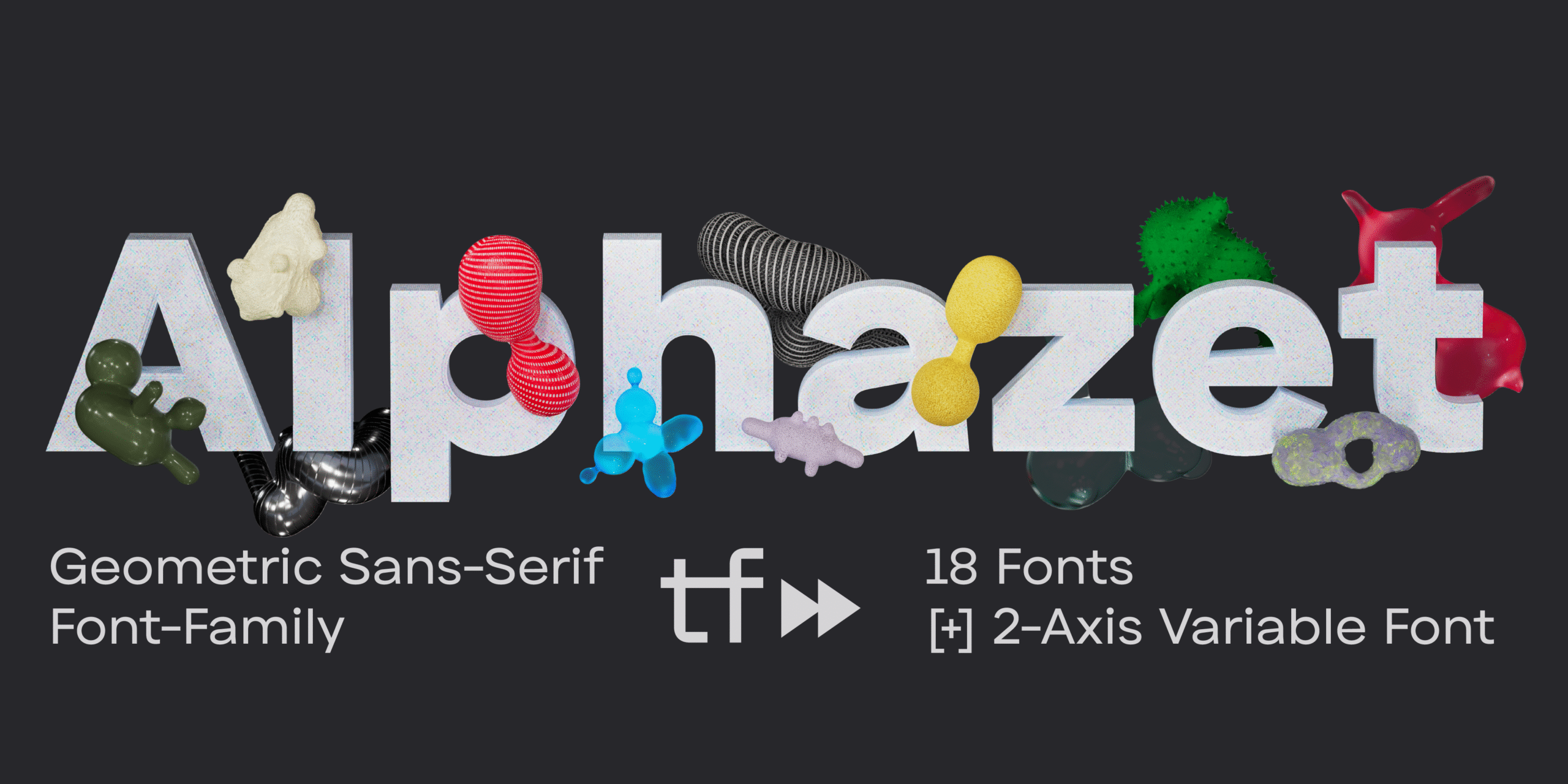
Alphazet – Geometric Sans Serif Font
Alphazet – Geometric Sans Serif Font is a flexible and reliable font created to fit multiple design needs, from branding and packaging to social media and editorial layouts. Alphazet is a geometric sans-serif with minimal stroke contrast and slightly wide proportions for improved readability. It includes 9 weights with matching oblique italics, all available as a variable font. With broad language support, OpenType features, and well-balanced spacing and kerning, Alphazet works well in both body text and display settings.
Developed by Type Forward and Luboslav Boyanov, Alphazet is based on geometric principles and designed for practical use. Its high x-height and stable proportions support legibility across a range of sizes. The typeface performs reliably in both extended reading and short, impactful text.
Alphazet is constructed from simple geometric forms, focusing on consistency and space efficiency. Short ascenders and descenders make better use of vertical space, and consistent weight distribution ensures uniform text color. The design avoids decorative details, maintaining a steady rhythm across lines.
The family includes 9 weights (Thin to Black), each with matching oblique italics. It is available in all necessary formats, including a single variable font file for flexible use. Alphazet suits a range of applications, from body text to headlines. Its proportions and spacing support readability at small sizes, while its structure remains strong at larger scales, such as in signage and posters.